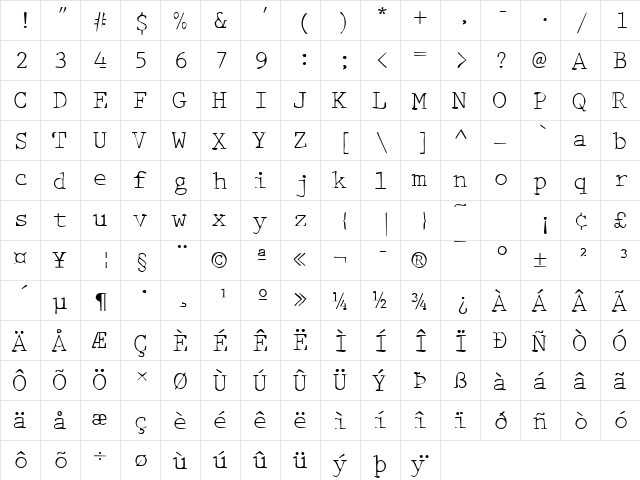
Dirty42 Becker Regular
Design Context for Dirty42 Becker Typeface
Dirty42 Becker is a composed and adaptable typeface that performs quietly and consistently across a wide range of design contexts.